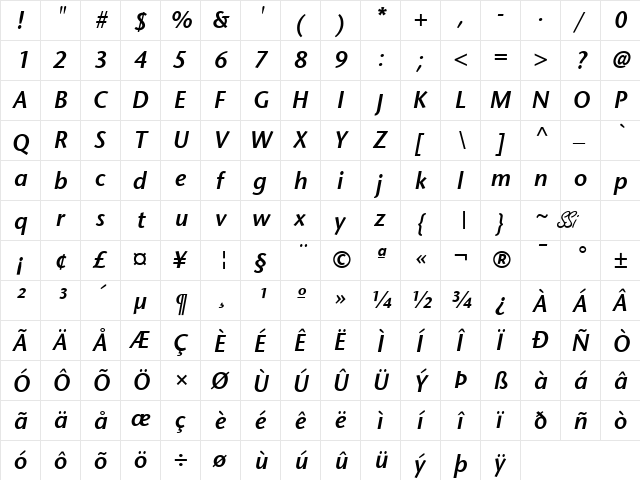
Mesouran Sans SSi Semi Bold Italic
Design Context for Mesouran Sans SSi Typeface
Mesouran Sans SSi offers clean, dependable letterforms without strong stylistic allegiance, making it a practical choice for designers who need flexibility. The dynamic lean of this cut emphasises speed and emphasis in any layout. The heavy weight commands attention and anchors typographic hierarchies.
Pro Tip: Use Mesouran Sans SSi for emphasis, pull quotes, and subheadings where its slanted energy can add rhythm to the layout.